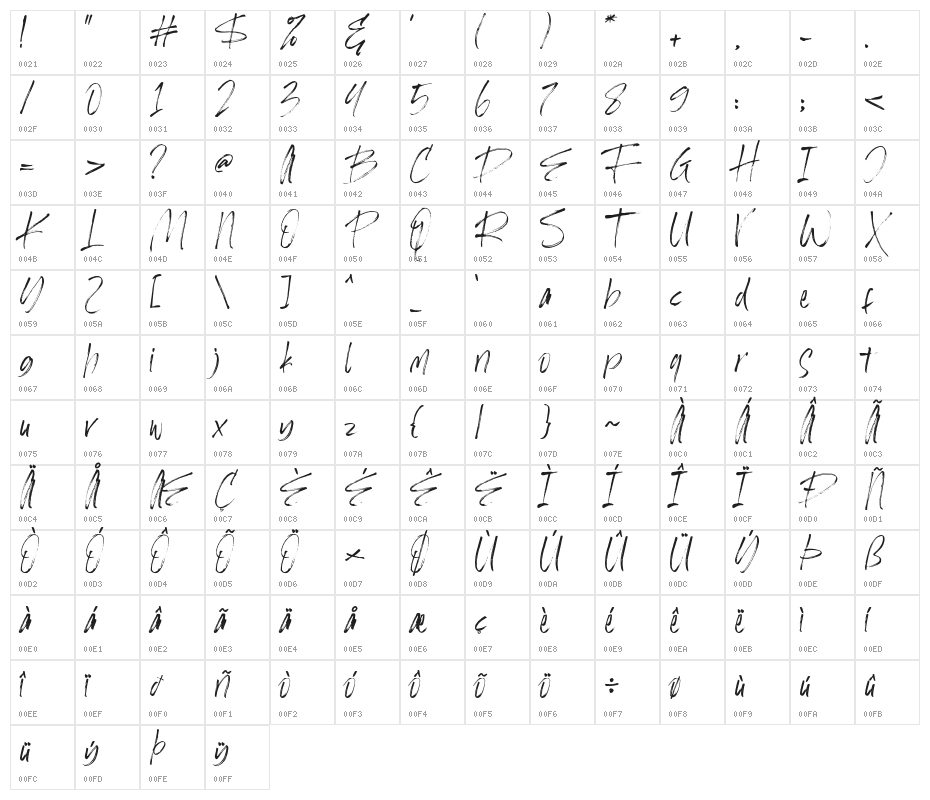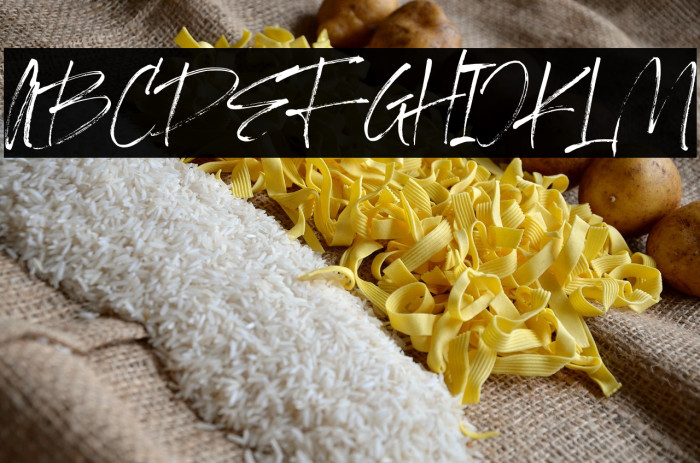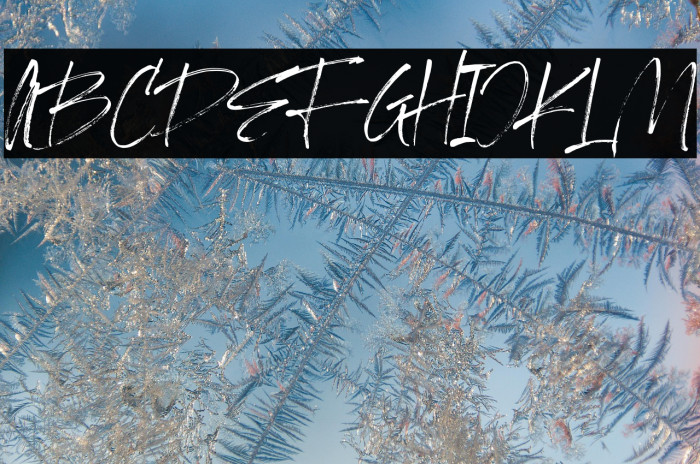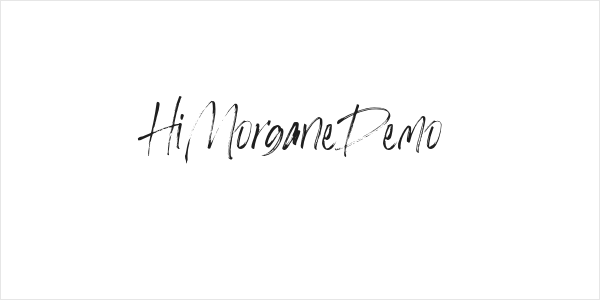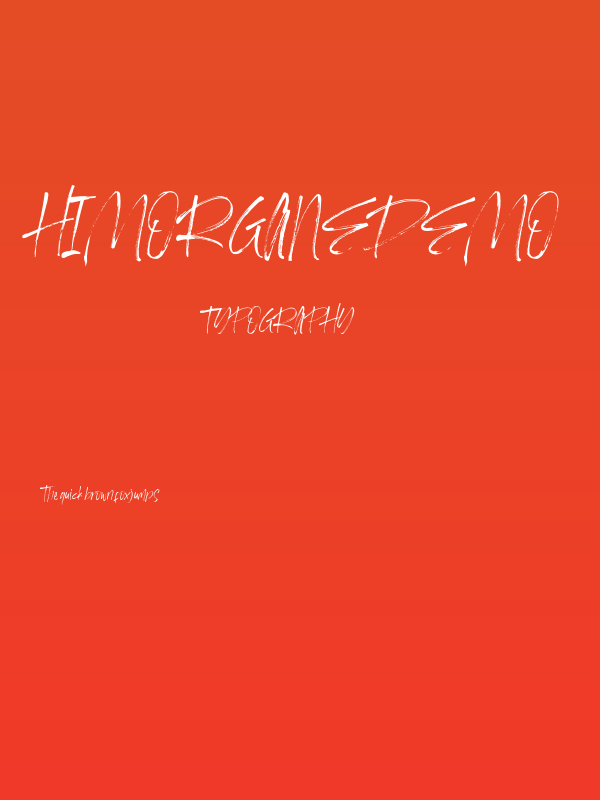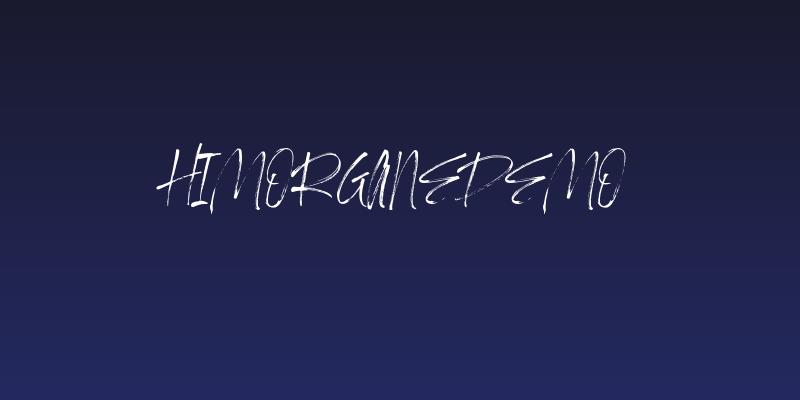
HiMorganeDemo Font
HiMorganeDemo Description
This font exhibits a dynamic and expressive handwritten style, characterized by its fluid and energetic strokes. The letters are crafted with a brush-like texture, giving them a raw and artistic appearance. The uppercase and lowercase letters maintain a consistent style, with varying stroke widths that add a sense of movement and spontaneity. The numerals and special characters follow the same aesthetic, ensuring a cohesive look across all glyphs. The overall design is both bold and informal, making it suitable for creative and artistic projects. The font's unique style captures attention and conveys a sense of individuality and creativity.
| Use Case | Logos, Headlines, Posters |
| Proposed Projects | Ideal for artistic projects, branding, posters, and creative designs that require a personal touch. |